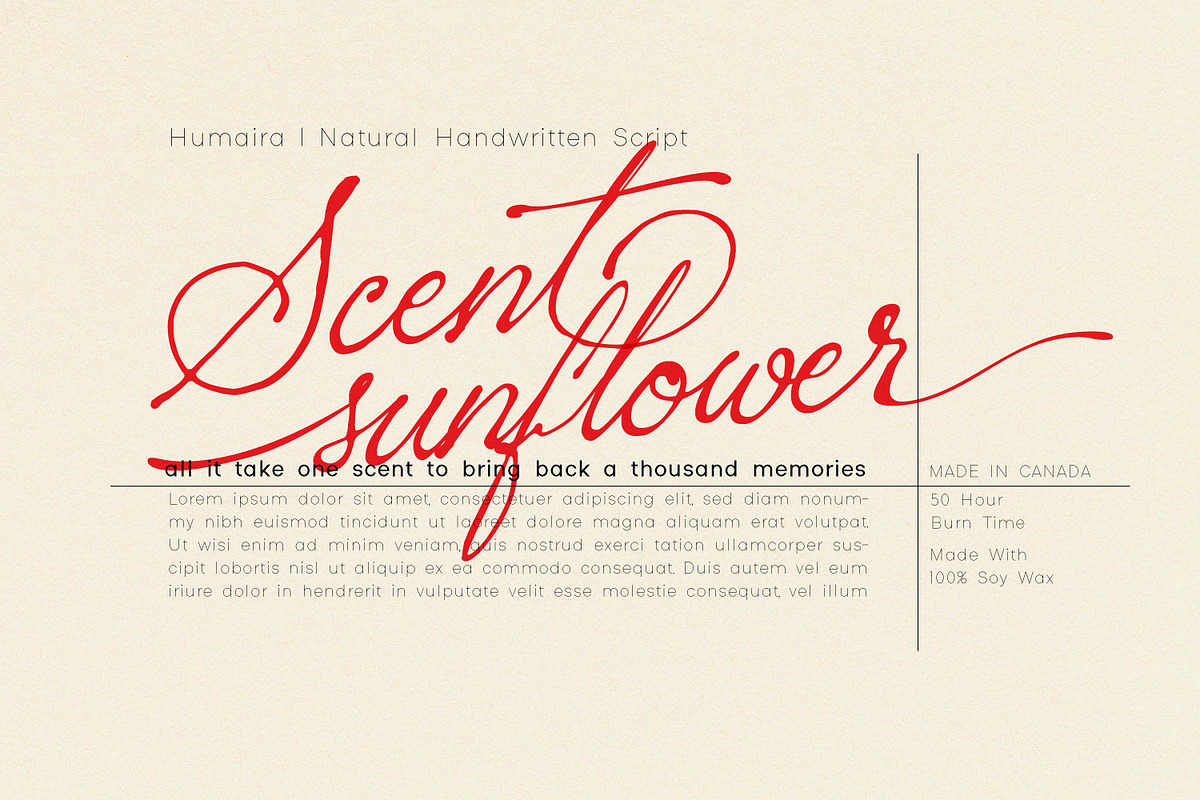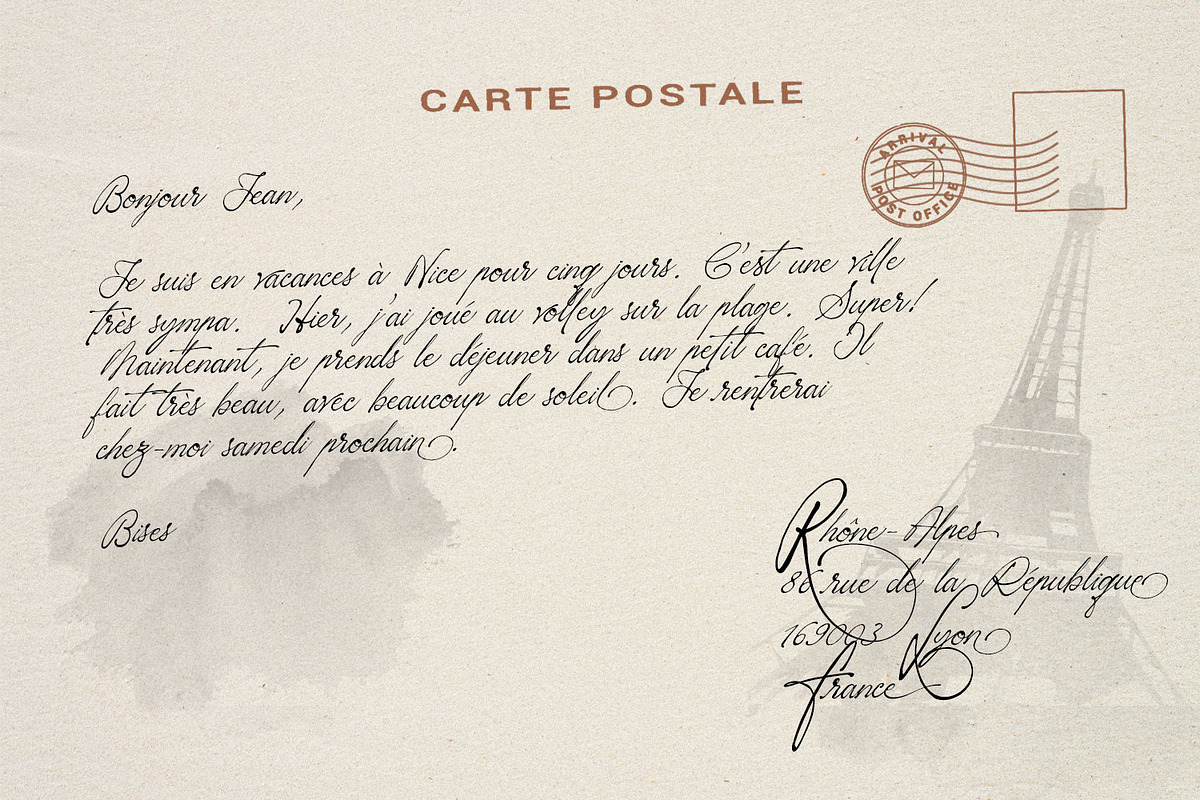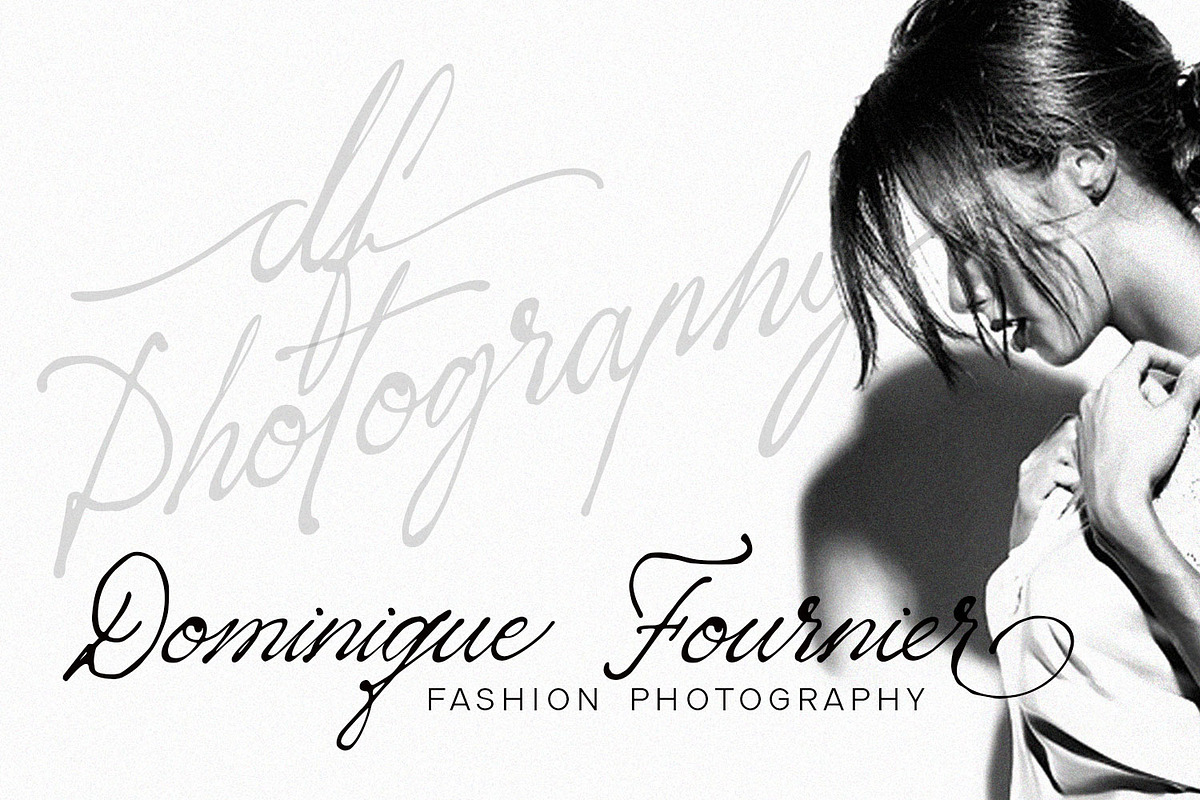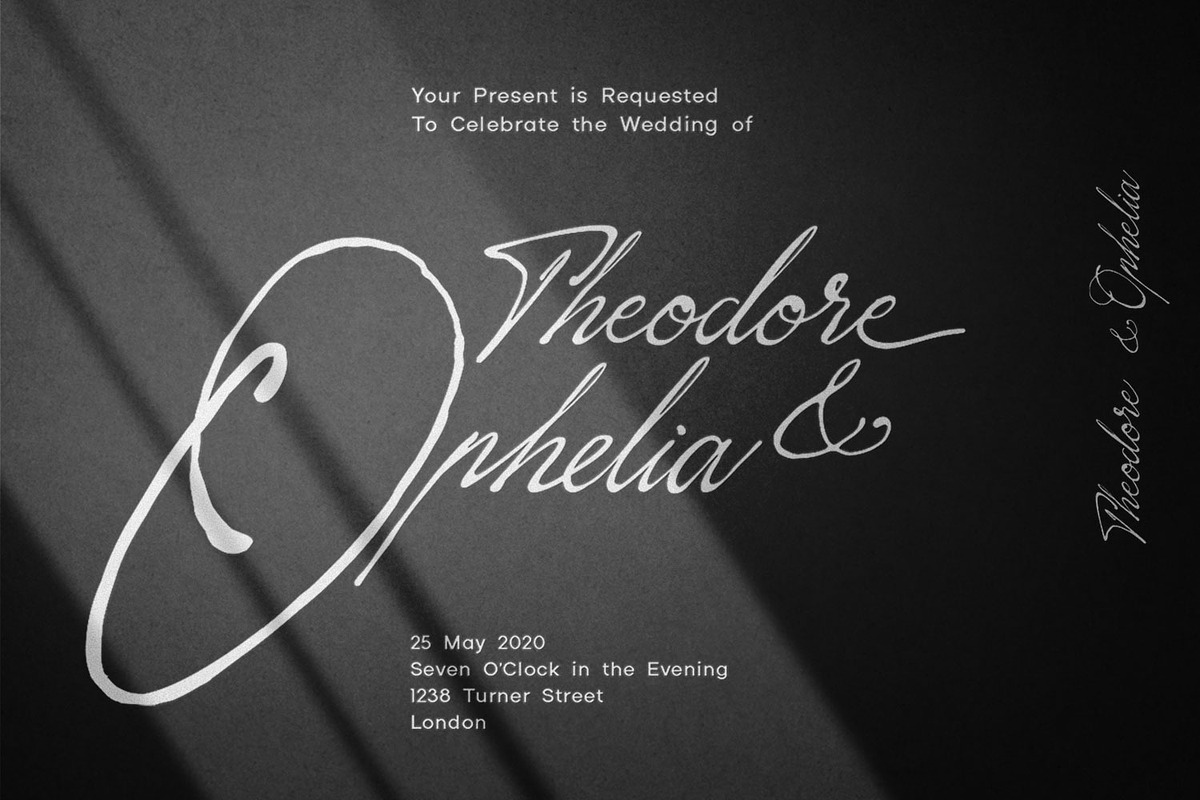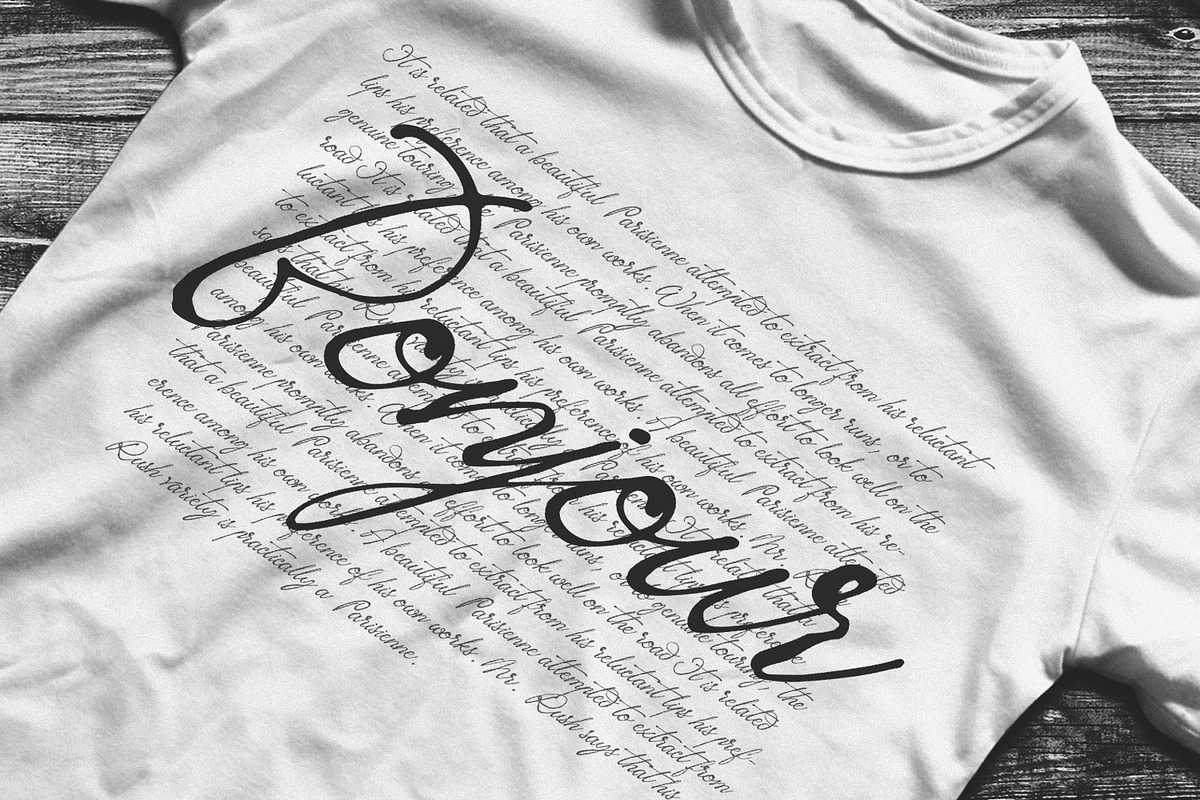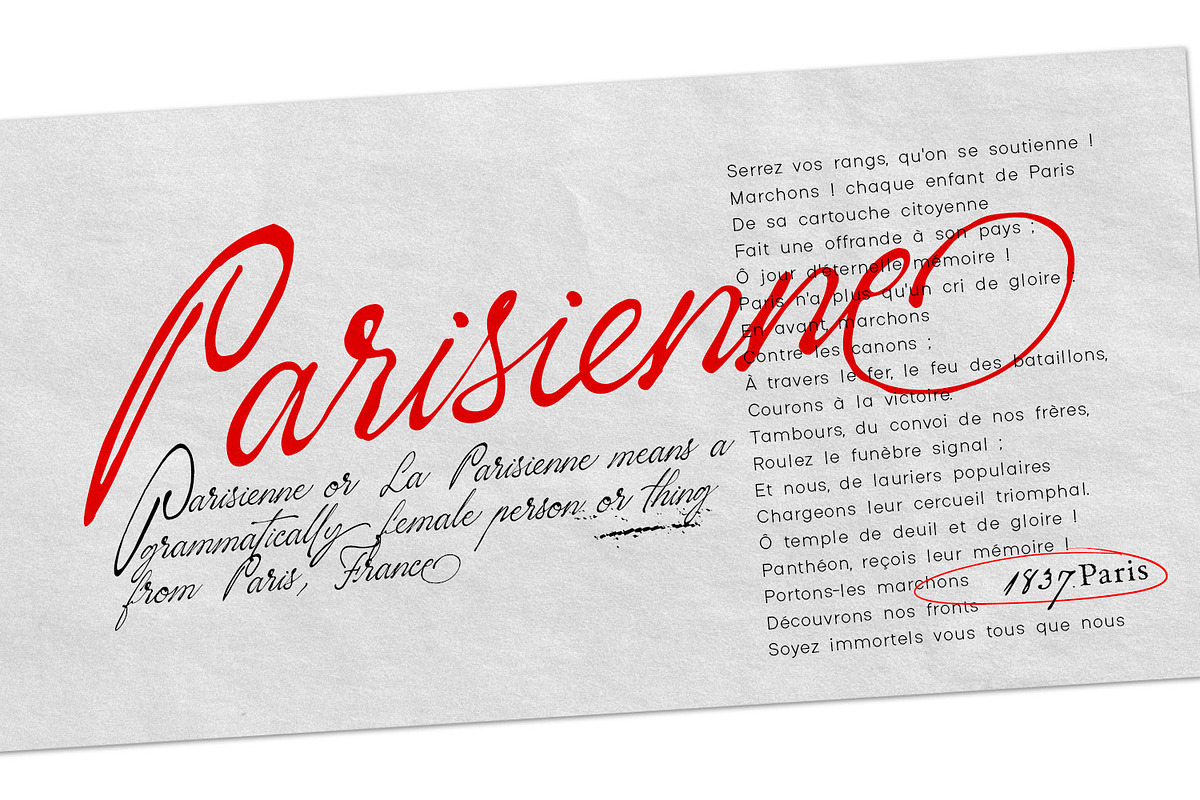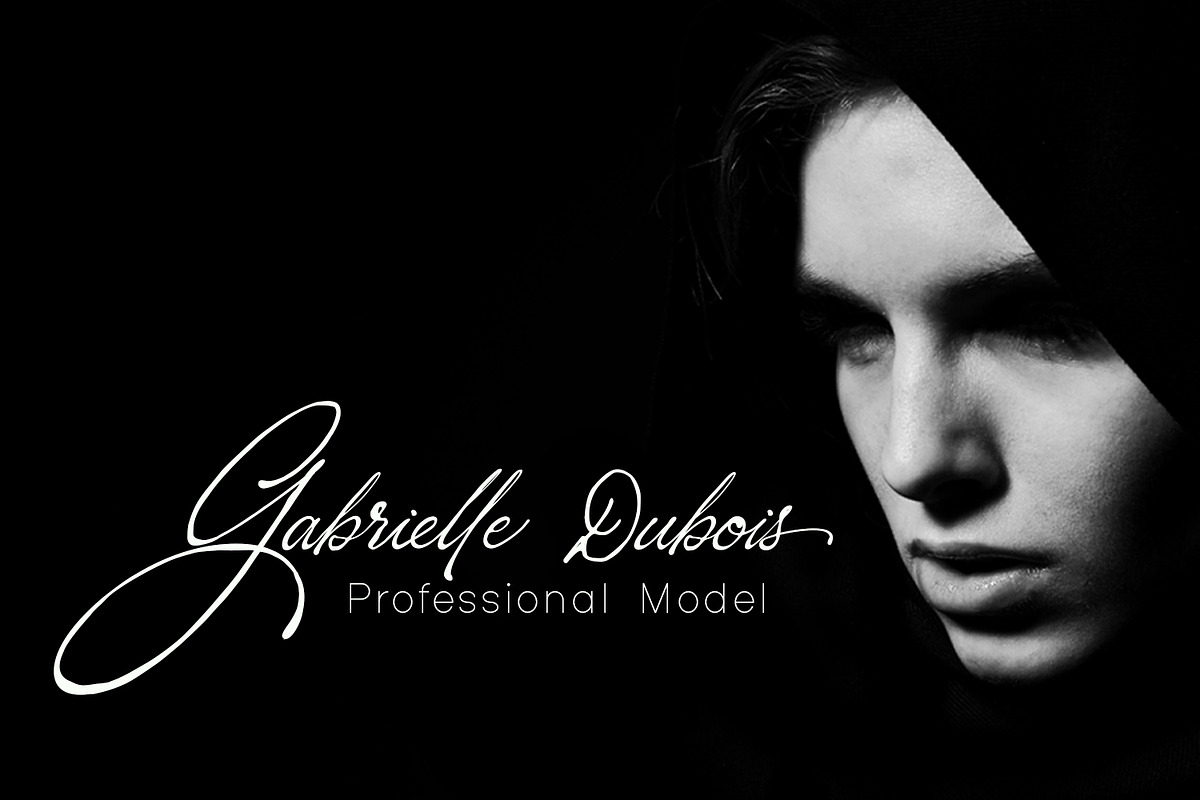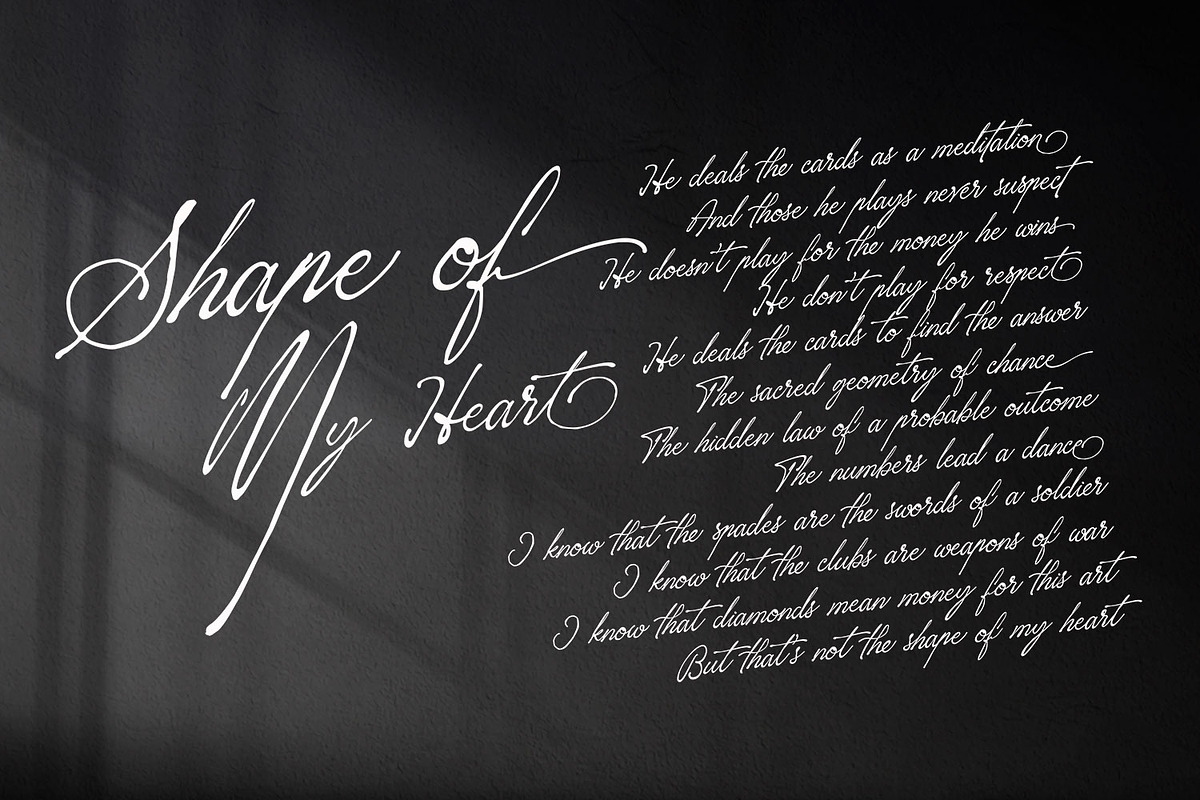
Sacred Letter - Natural Script
Sacred Letter is a flowing and classic handwritten font, described by an elegant touch, perfect for your dearest projects. Fall in love with its incredibly distinct and timeless style and use it to create spectacular designs!
This font is PUA encoded which means you can access all of the glyphs and swashes with ease! It features a varying baseline, smooth lines, gorgeous glyphs and stunning alternates.